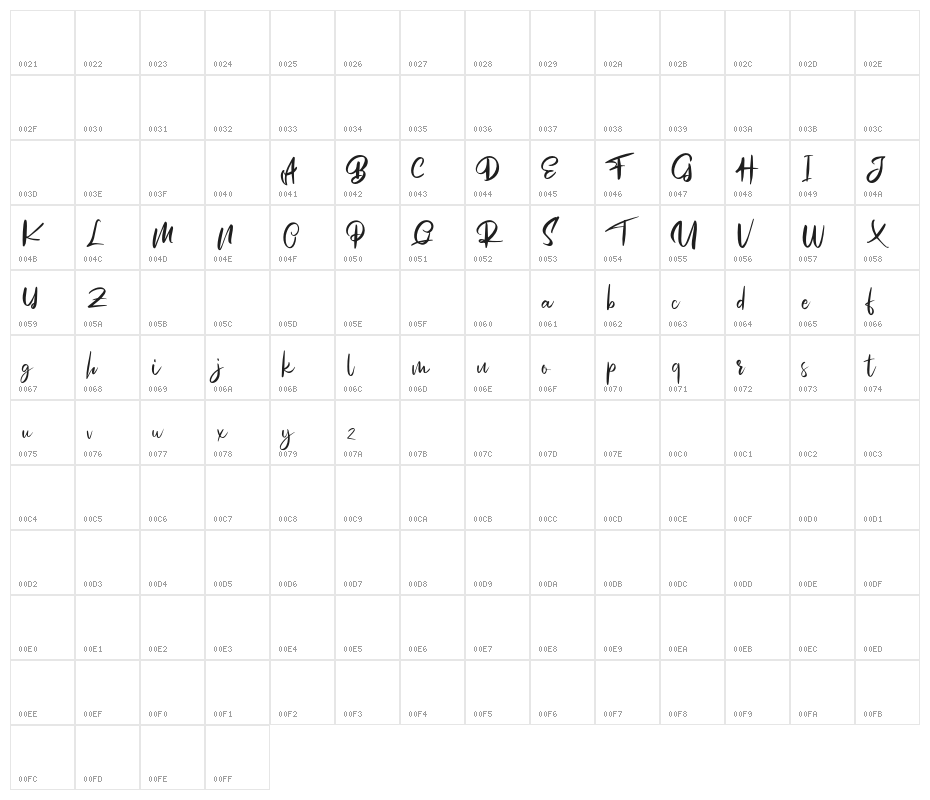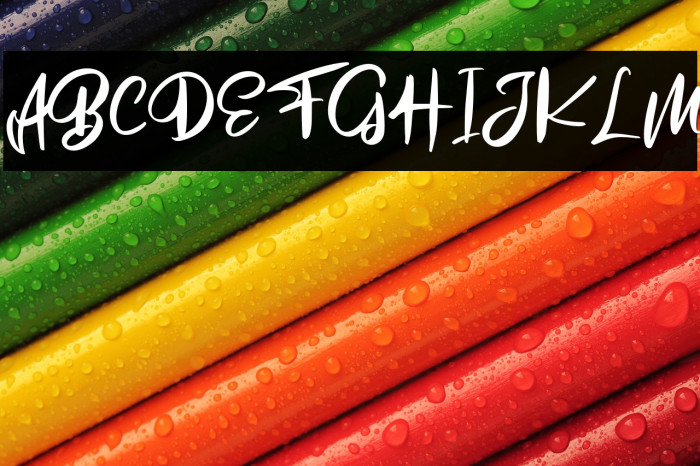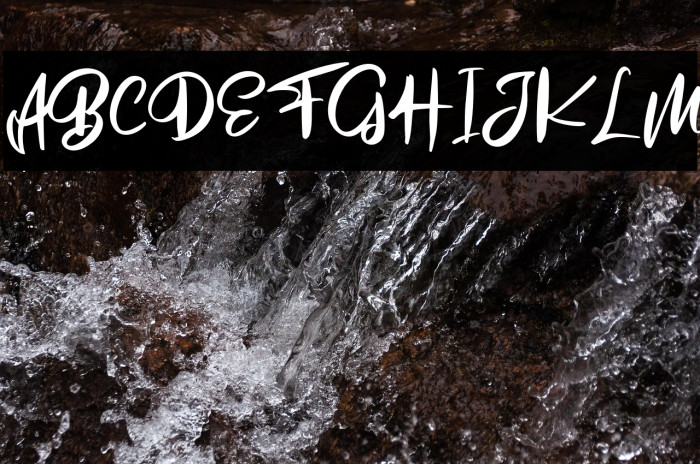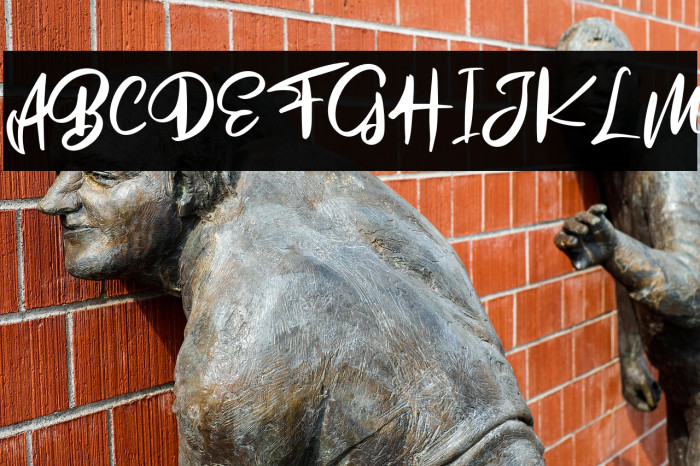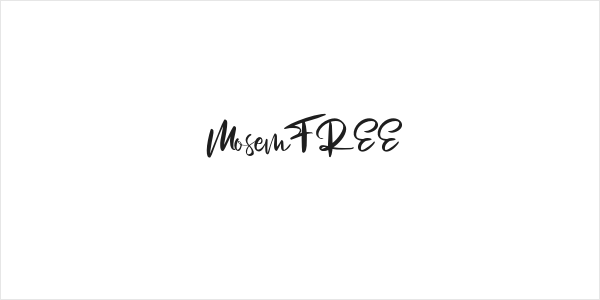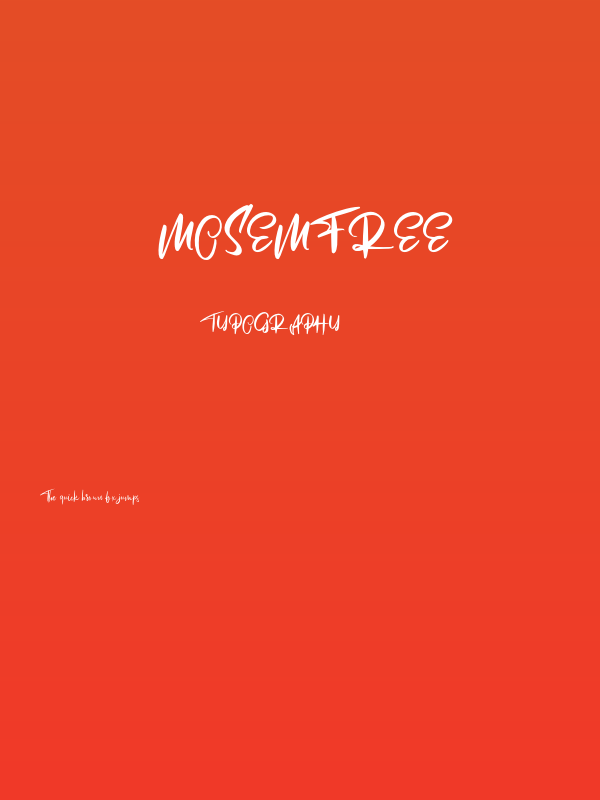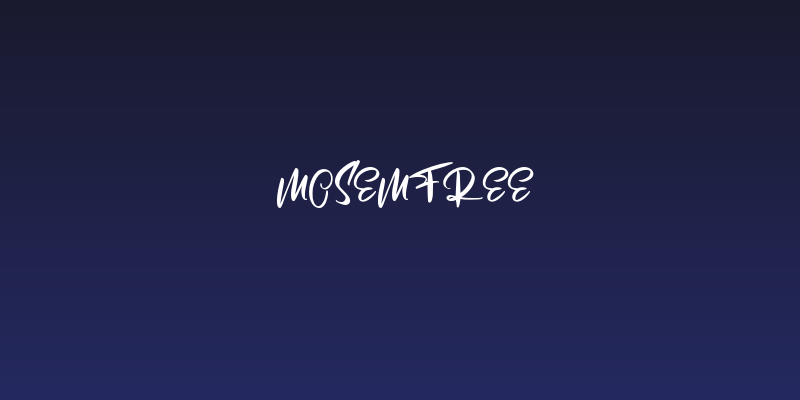
MosemFREE Font
MosemFREE Description
This font features a dynamic and expressive handwritten style, characterized by fluid, sweeping strokes and a playful yet elegant appearance. The uppercase letters are bold and prominent, with a slight slant that adds a sense of movement and energy. The lowercase letters maintain a consistent flow, with some characters extending below the baseline, enhancing the font's casual and artistic feel. The numbers and special characters are crafted with the same attention to detail, ensuring a cohesive look across all glyphs. This font's unique style makes it suitable for projects that require a personal touch or a creative flair.
A dynamic, expressive handwritten font with fluid strokes and playful elegance from Uncategorized fonts.
- Font: MosemFREE
- Proposed Projects: Ideal for branding, invitations, greeting cards, and artistic projects that require a personal touch.
- Use Case: Logos, Headlines, Invitations